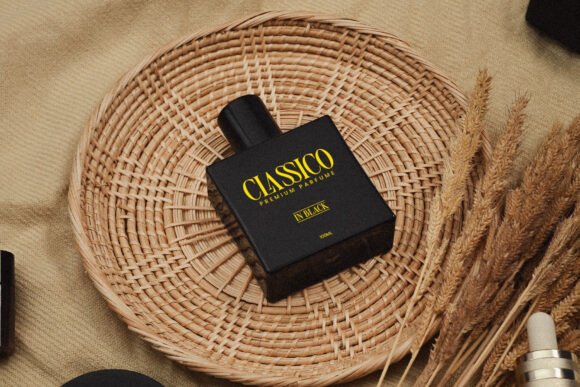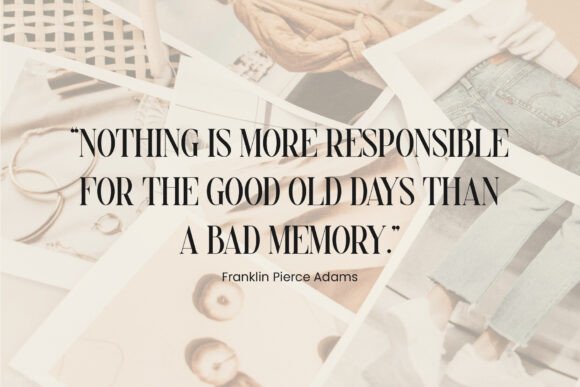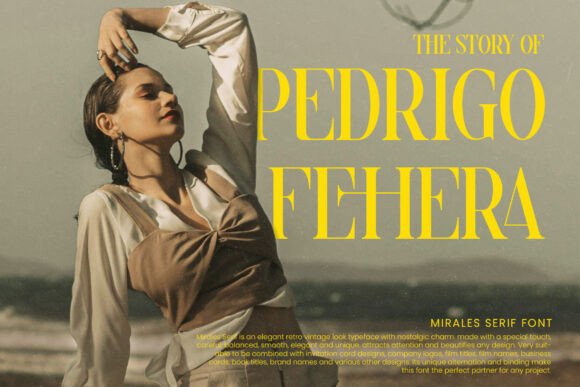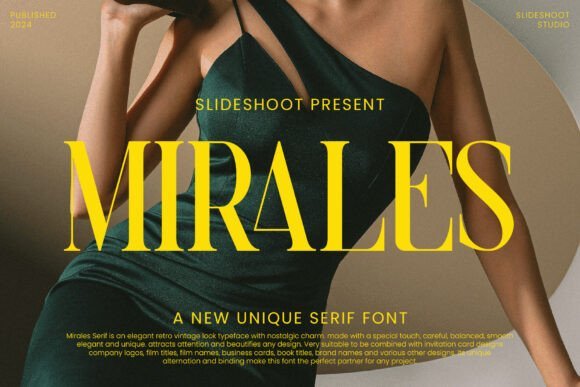
Introduction to Mirales Font
Mirales Serif is an elegant retro vintage look typeface with nostalgic charm.
made with a special touch, careful, balanced, smooth, elegant and unique attracts attention and beautifies any design.
Why Choose Mirales Font?
Mirales Font offers exceptional quality and versatility, making it a valuable addition to your design toolkit. Whether you’re creating for personal projects or commercial use, Mirales Font delivers professional results.